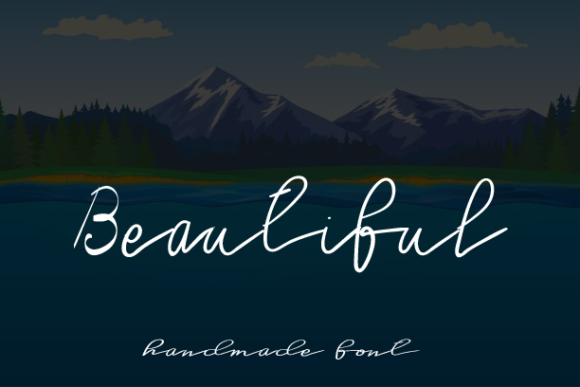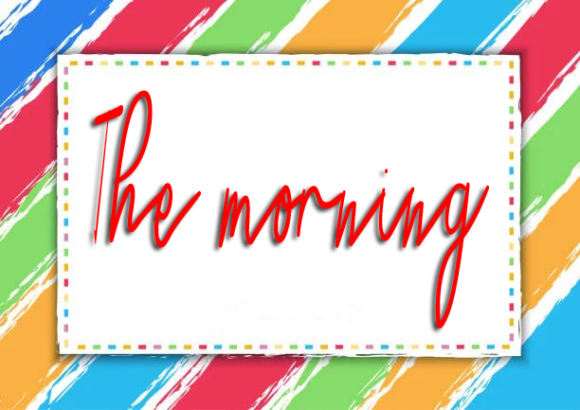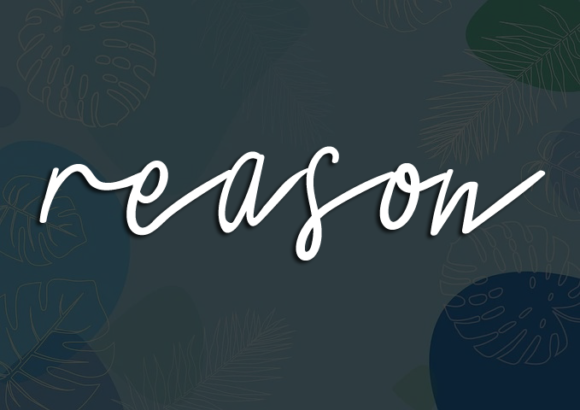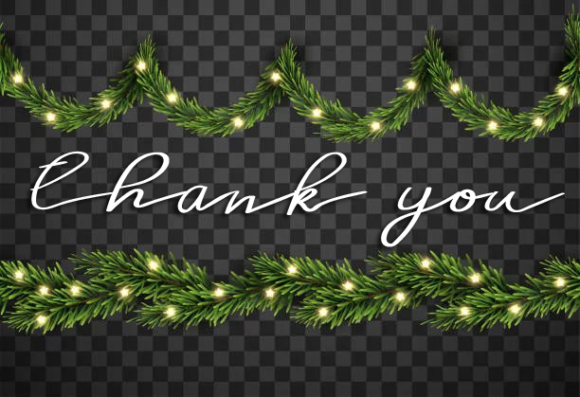
Introduction to Beswara Font
Beswara is a chic, refined script font that emanates sophistication and elegance.
Its stylish alternates and ligatures make this font the perfect match for any project .
Key Features of Beswara Font
Why Choose Beswara Font?